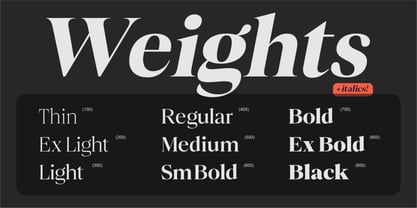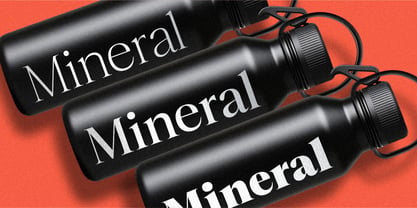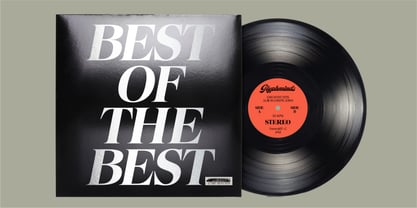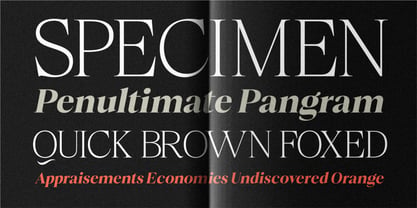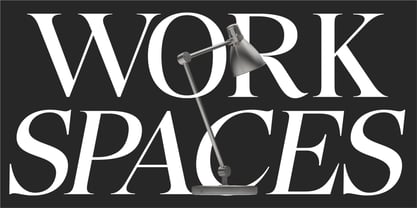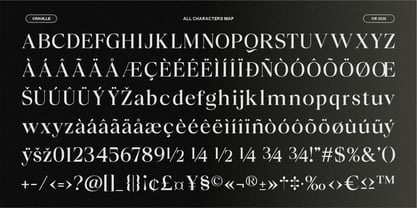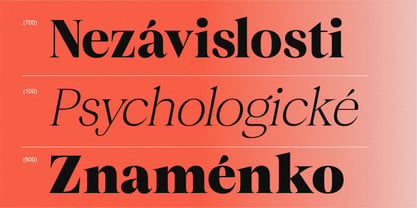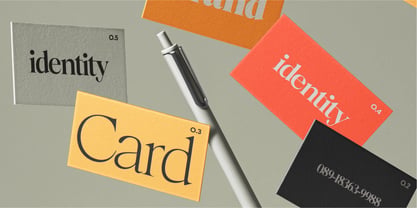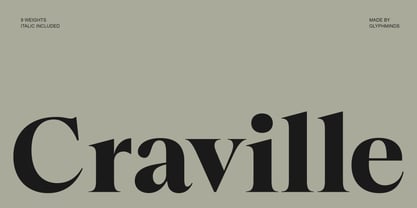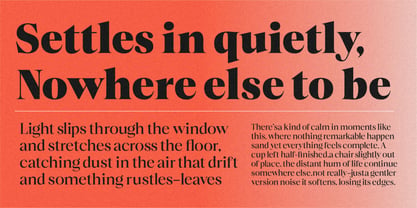
Craville
by Glyphminds Studios
The Craville Font Family was designed by Baliya Ibnu Bi Malkan and published by Glyphminds Studios. Craville contains 18 styles and family package options. More about this family
Craville is a refined and sophisticated serif typeface designed to bring elegance and modern luxury into your projects. With its high-contrast strokes, smooth curves, and distinctive character shapes, Craville delivers a premium visual feel that stands out effortlessly. This font family includes 18 versatile weights from Thin to Black, giving you complete creative flexibility—whether you're crafting high-end branding, editorial layouts, logos, or stylish social media content. Every letter is carefully designed to maintain balance, readability, and aesthetic harmony across all styles. Craville is perfect for designers who want a timeless yet contemporary look. It works beautifully for fashion brands, luxury packaging, magazines, and elegant web design. If you're looking for a font that feels both classy and bold, Craville is your perfect choice.
Designers: Baliya Ibnu Bi Malkan
Foundry: Glyphminds Studios